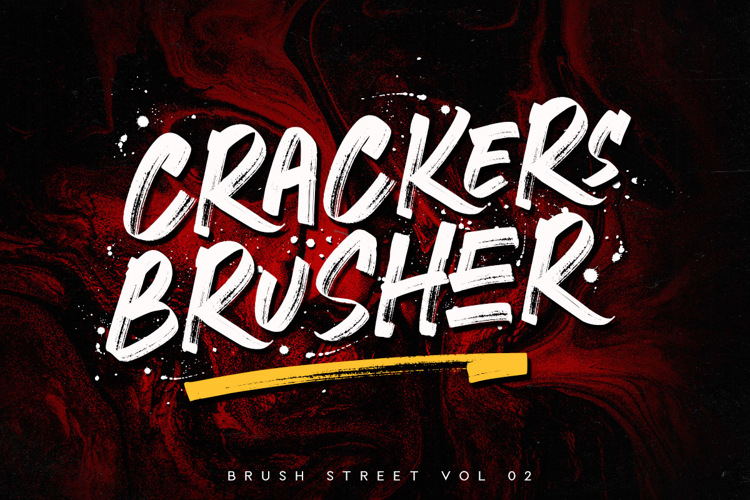
CRACKERS BRUSHER Font
introducing Crackers Brusher Font Brush from our collection, carefully crafted and full of imagination, rough textures that are typical of this font with swash and splashes are equipped with two regular and slant styles and OpenType and 28 ligature features.
This font is perfect for challenging jobs, titles, t-shirts, websites, hoodies, and various print and digital media with energy. With extra attention to quick strokes and sharp details, Crackers Brusher is ideal for logos, apparel, quotes, product packaging, or anything which needs a typographic turbo-boost.